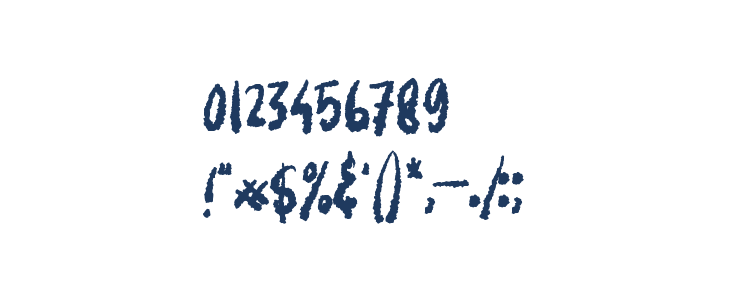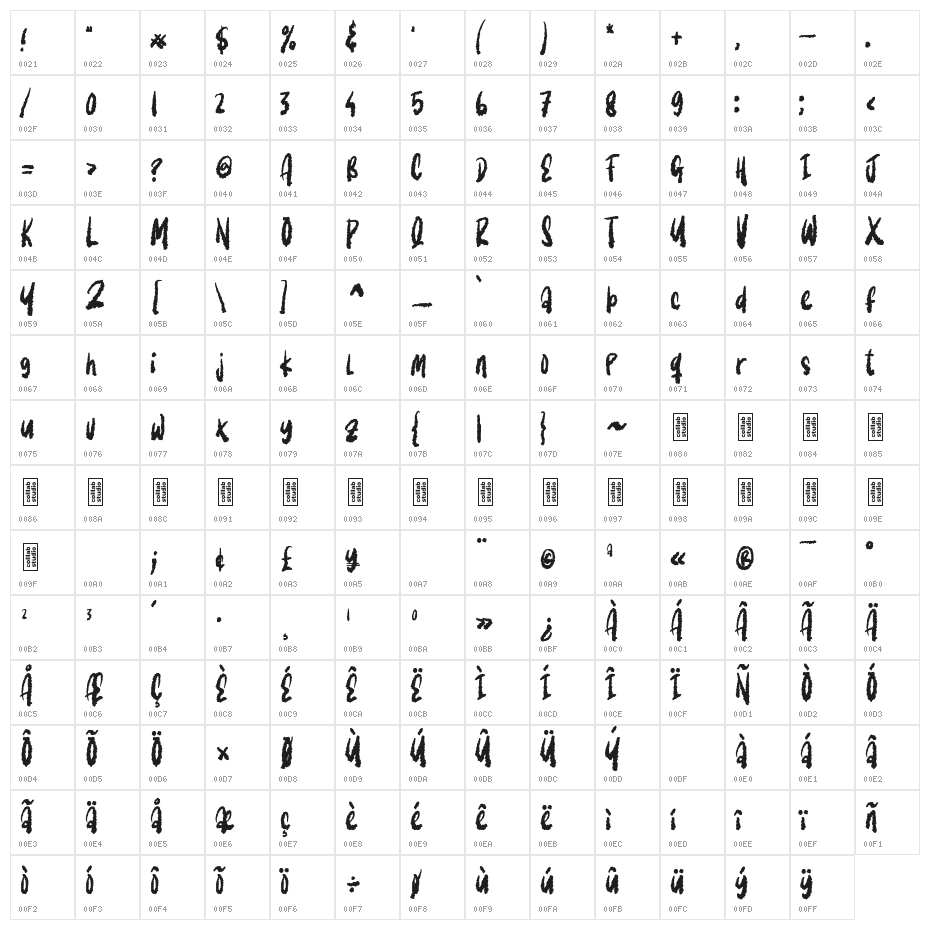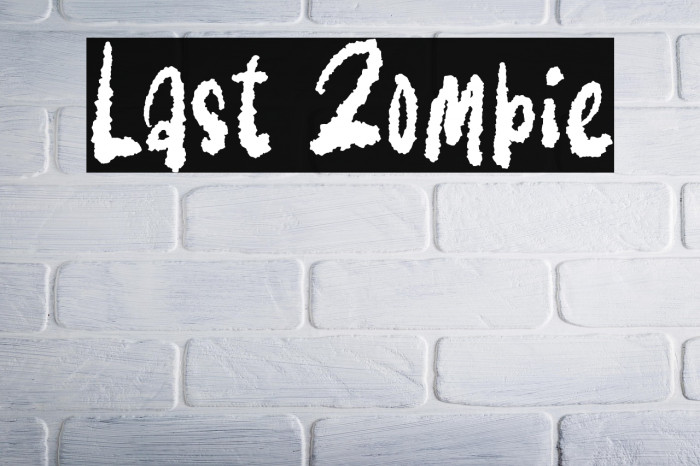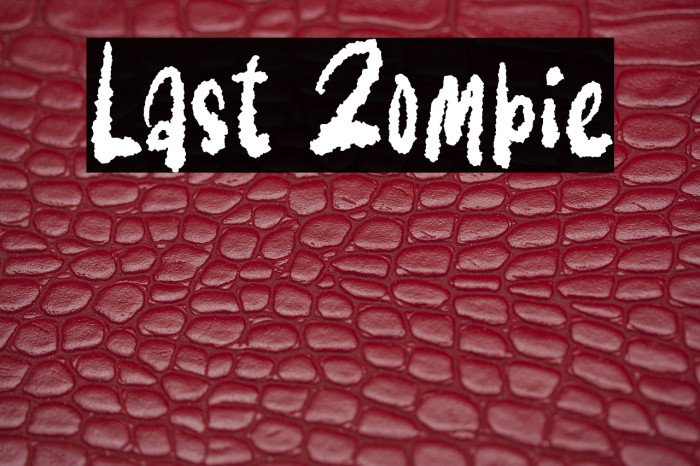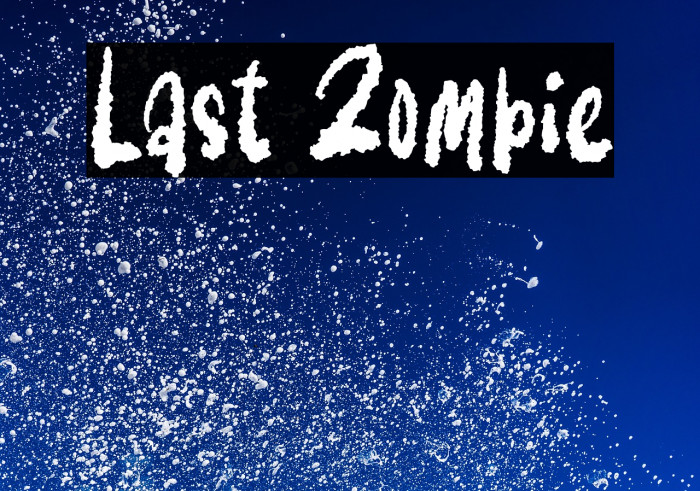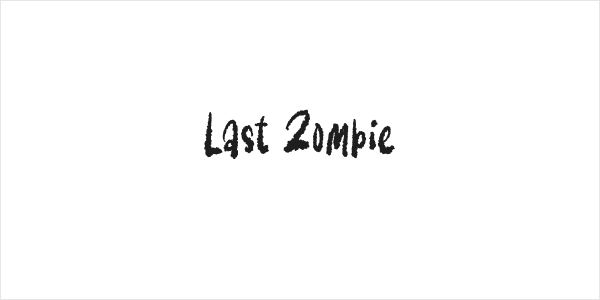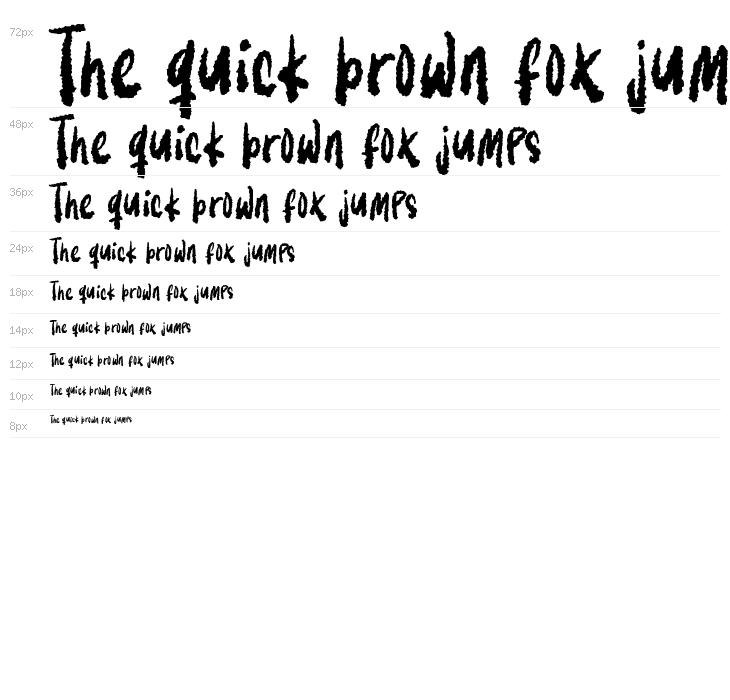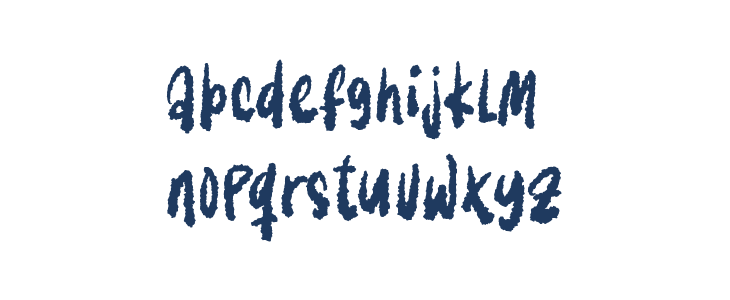
Last Zombie Font
Last Zombie Description
This font features a bold, textured style that mimics the appearance of hand-drawn brush strokes. The letters are irregular and slightly jagged, giving them a raw, edgy feel. The uppercase and lowercase letters maintain a consistent height, while the numbers and special characters are designed to match the overall aesthetic. The font's rough texture and dynamic appearance make it stand out, creating a sense of movement and energy. It's perfect for projects that require a bold statement or an artistic touch.
| Proposed Projects | Ideal for posters, album covers, graffiti art, and any project needing a bold, artistic flair. |